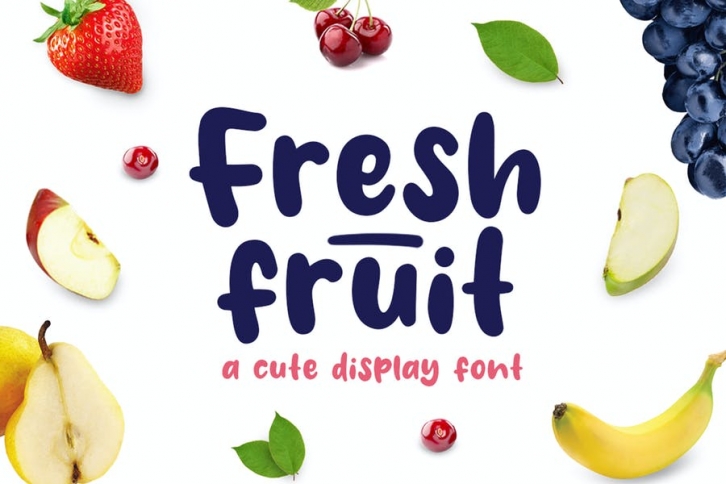
Introducing, Fresh Fruit font a fun display typeface with cheerful theme for your fun project. Fresh Fruit font suitable for logo, branding, greeting card, poster and any design that you create.